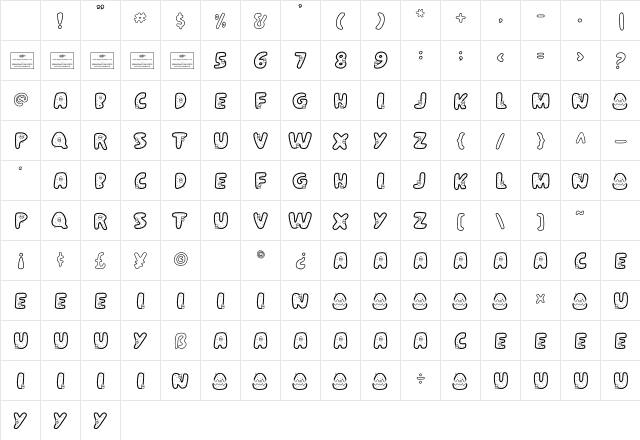
Complete Eggnog Regular glyph index. Displaying only characters natively supported by Eggnog Regular font.
Eggnog is a composed and adaptable typeface that performs quietly and consistently across a wide range of design contexts.
Pro Tip: Use Eggnog in both headline and body roles to test its range before committing to a single application.